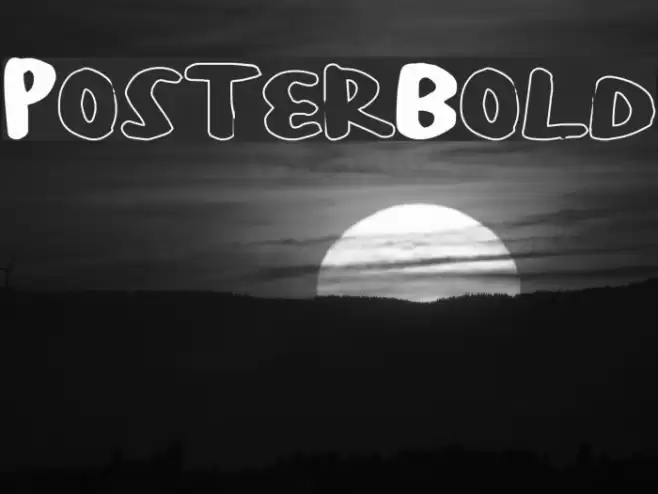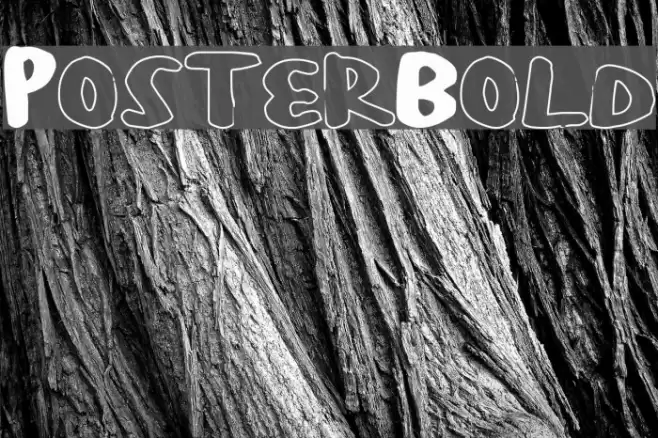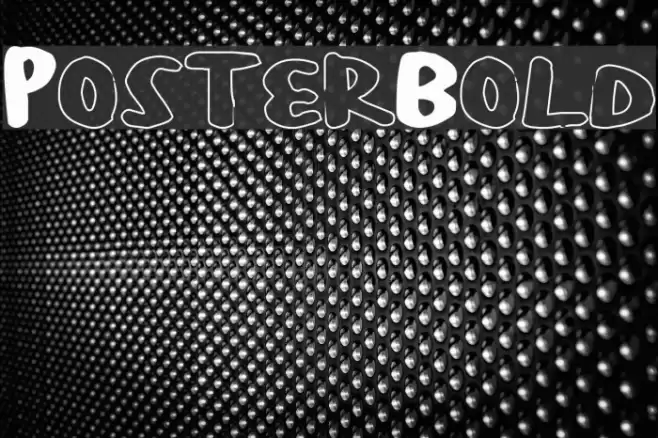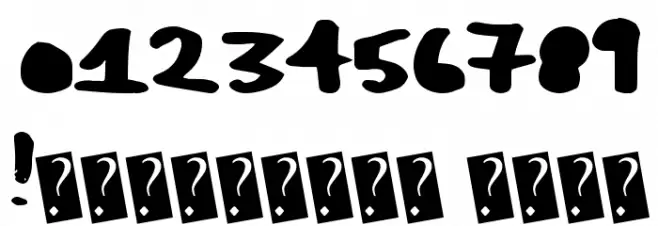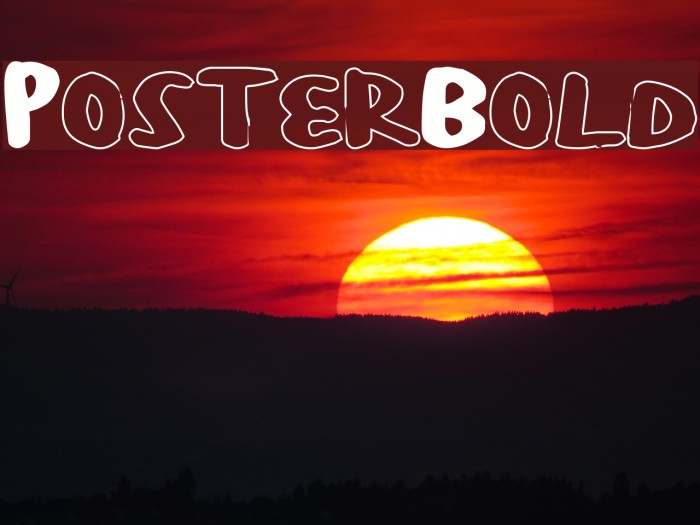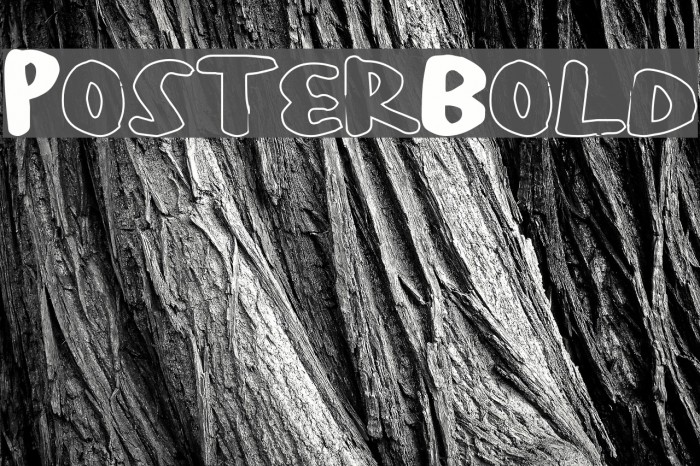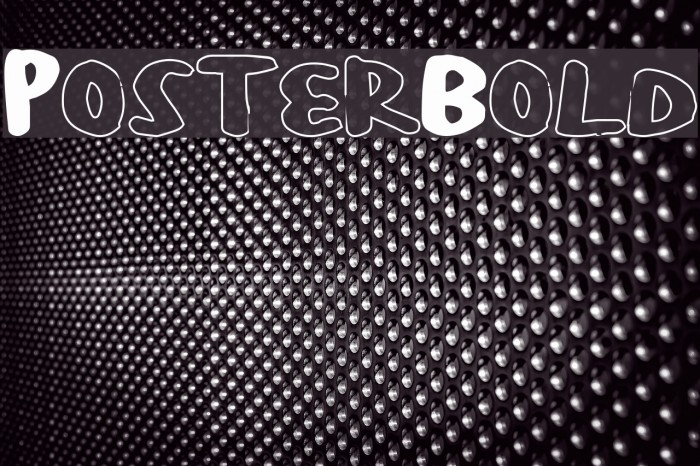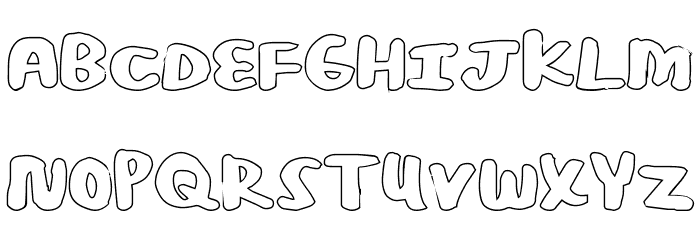
PosterBold Font
PosterBold Description
This font features a bold and playful style with rounded edges and a slightly irregular form, giving it a hand-drawn appearance. The uppercase letters are robust and eye-catching, making them suitable for attention-grabbing headlines. The lowercase letters maintain the same playful aesthetic, ensuring consistency across different text cases. Numbers are equally bold and rounded, ensuring they stand out in any design. Special characters are designed with the same boldness, contributing to a cohesive look. The font's overall style is casual and friendly, making it ideal for informal and creative projects.
A bold, playful font with rounded, hand-drawn characteristics from Comic fonts.
- Proposed Projects: Ideal for children's books, playful branding, posters, and creative advertising.
- Overall Style: Playful, Casual
- Use Case: Headlines, Posters, Creative Branding